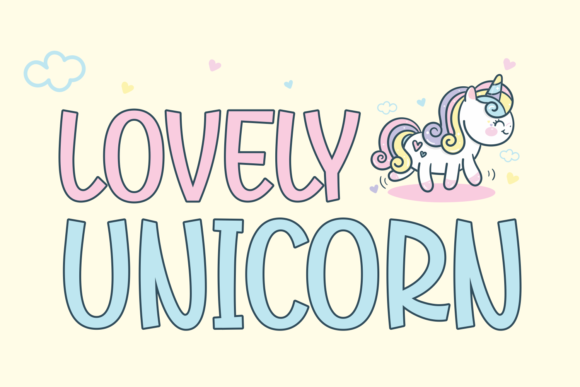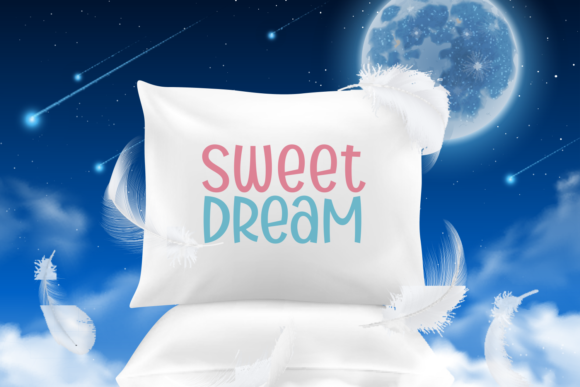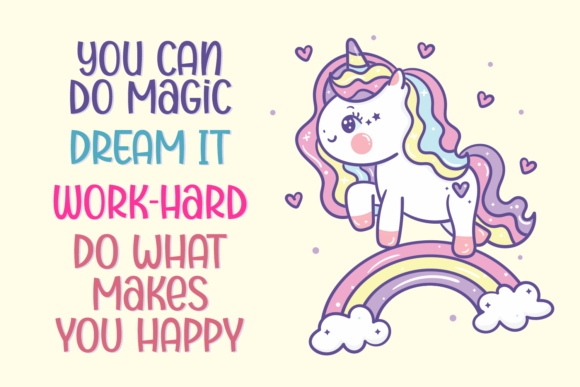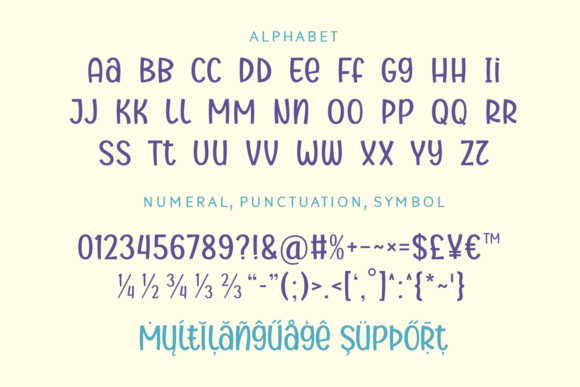
The Dream World Font: A Designer’s New Best Friend
I’ll never forget the time I was working on a project for a client who wanted a playful, whimsical font to match their brand’s fun personality. I scoured the internet for hours, trying to find the perfect fit, but everything seemed either too boring or too over-the-top. That’s when I stumbled upon the Dream World font, and it was love at first sight! 💕
Its simple yet playful structure immediately caught my attention, and I knew I had to share it with fellow designers and crafters. In this article, I’ll give you the lowdown on what makes Dream World so special, its features, and how to make the most of it in your designs.
An Honest Review of Dream World Font
• ✨ Playful and whimsical: Dream World has a unique charm that’s perfect for designs that need a bit of personality.
• ✅ Highly versatile: This font is suitable for a wide range of projects, from crafts and print designs to digital media.
• 🌟 Easy to read: Despite its playful nature, Dream World remains clear and legible, even at smaller font sizes.
• 🤝 Compatible with cutting machines: It’s compatible with popular cutting machines like Cricut and Silhouette, making it a great choice for crafters.
While Dream World is an amazing font, there are a few things to keep in mind:
• ⚠️ Limited use in formal designs: Due to its playful nature, Dream World might not be the best fit for very formal or professional designs.
• 🤔 No extensive language support: While it covers the basics, Dream World might not have support for more exotic languages or special characters.
3. Experiment with OpenType features and glyphs to add more personality to your text.
3. Take advantage of stylistic alternates and swashes to add more flair to your designs.
The Backstory Behind Dream World
Rumor has it that Dream World was inspired by the creator’s childhood love of fantasy and imagination. The designer wanted to craft a font that would transport users to a world of dreams and creativity, perfect for projects that require a bit of playfulness.
Q: Does Dream World support OpenType features?
A: Yes, Dream World supports OpenType features, allowing you to access a range of glyphs and stylistic alternates to enhance your designs.